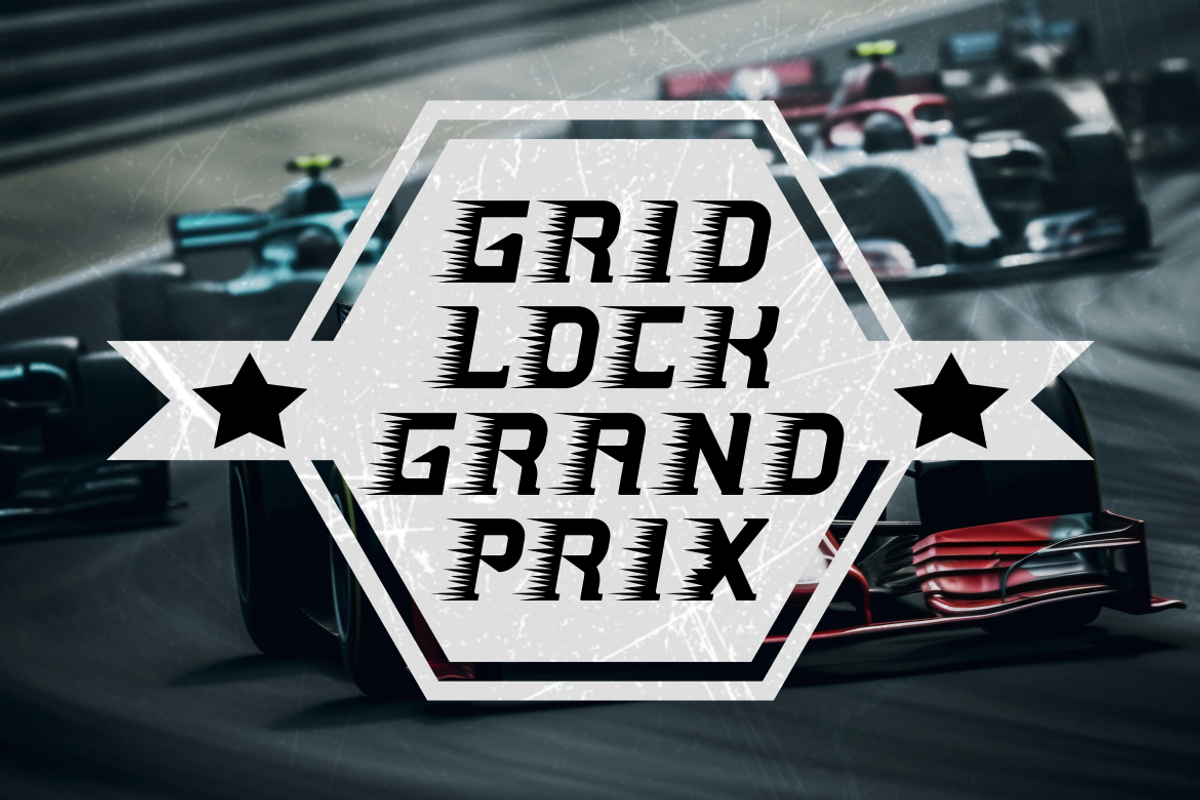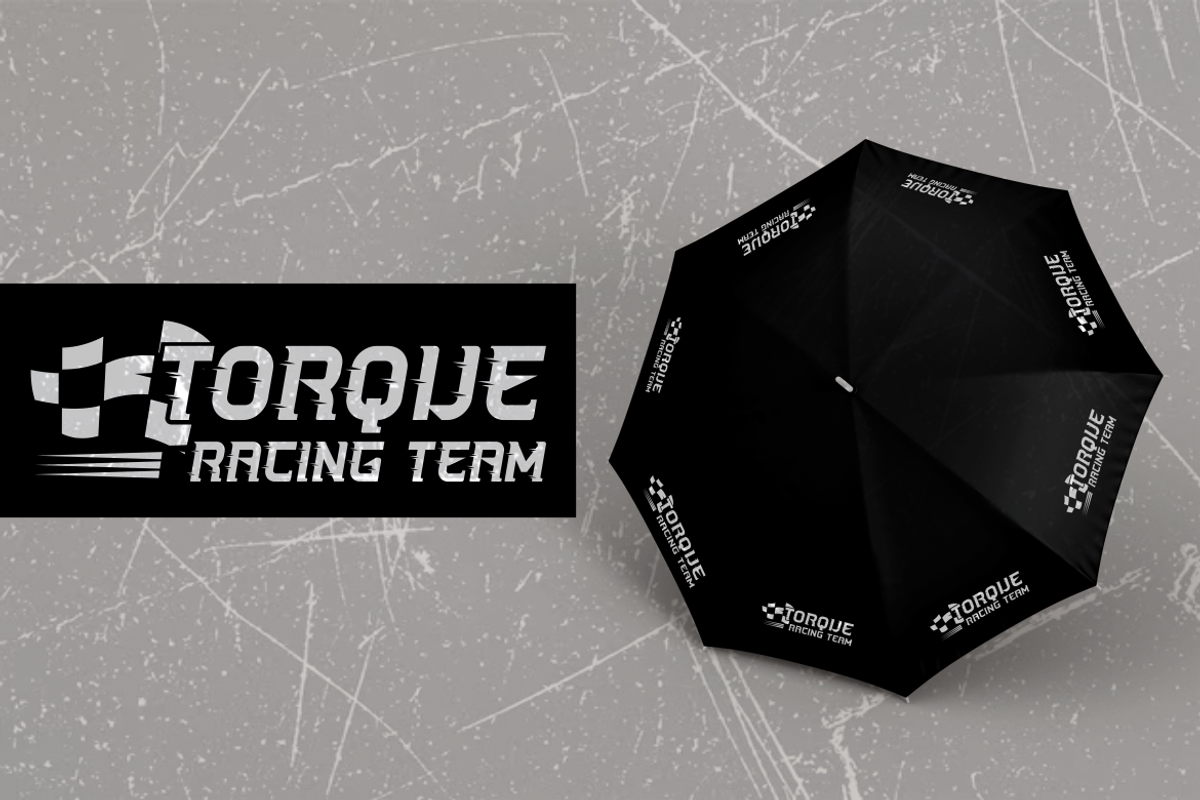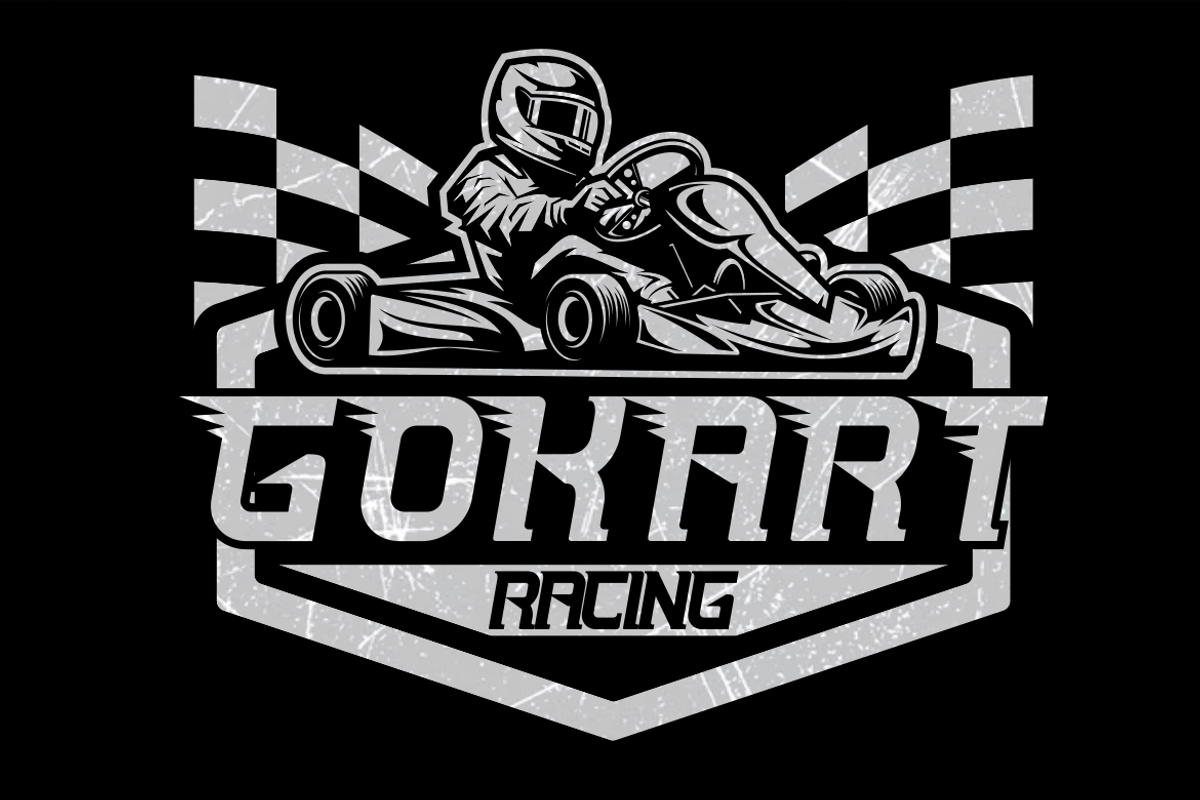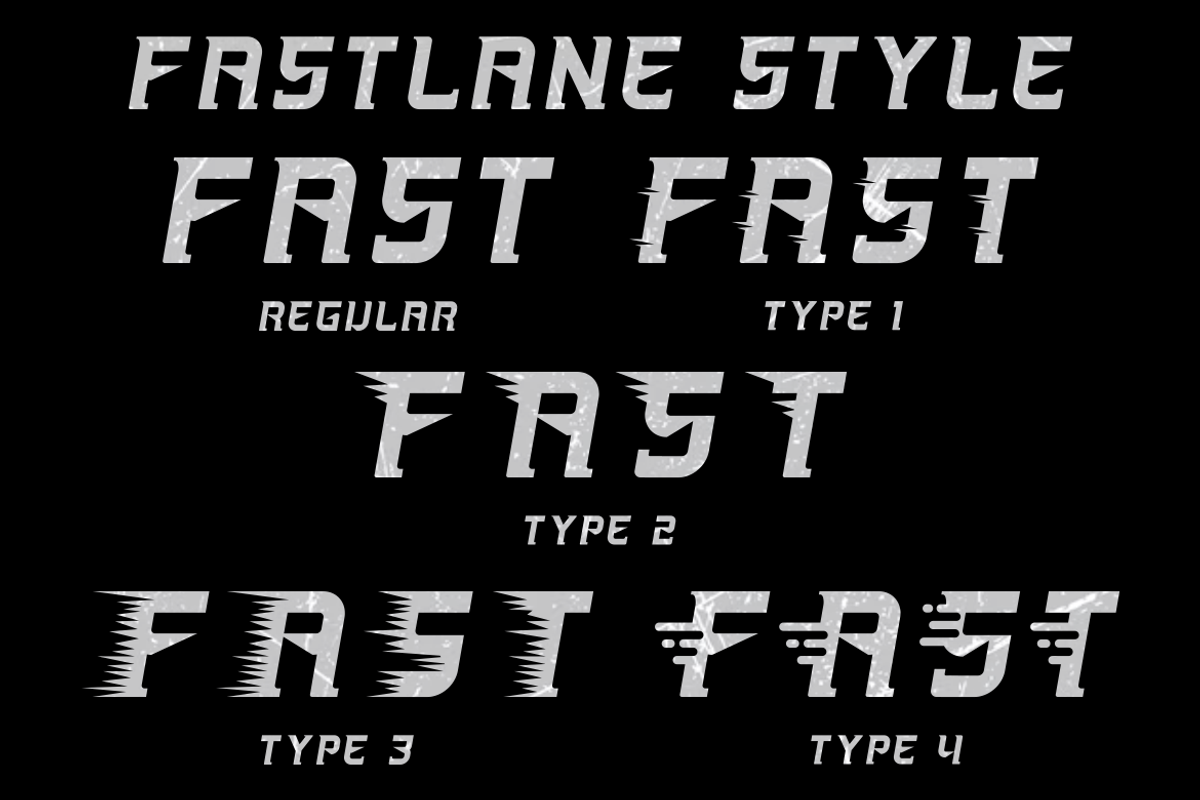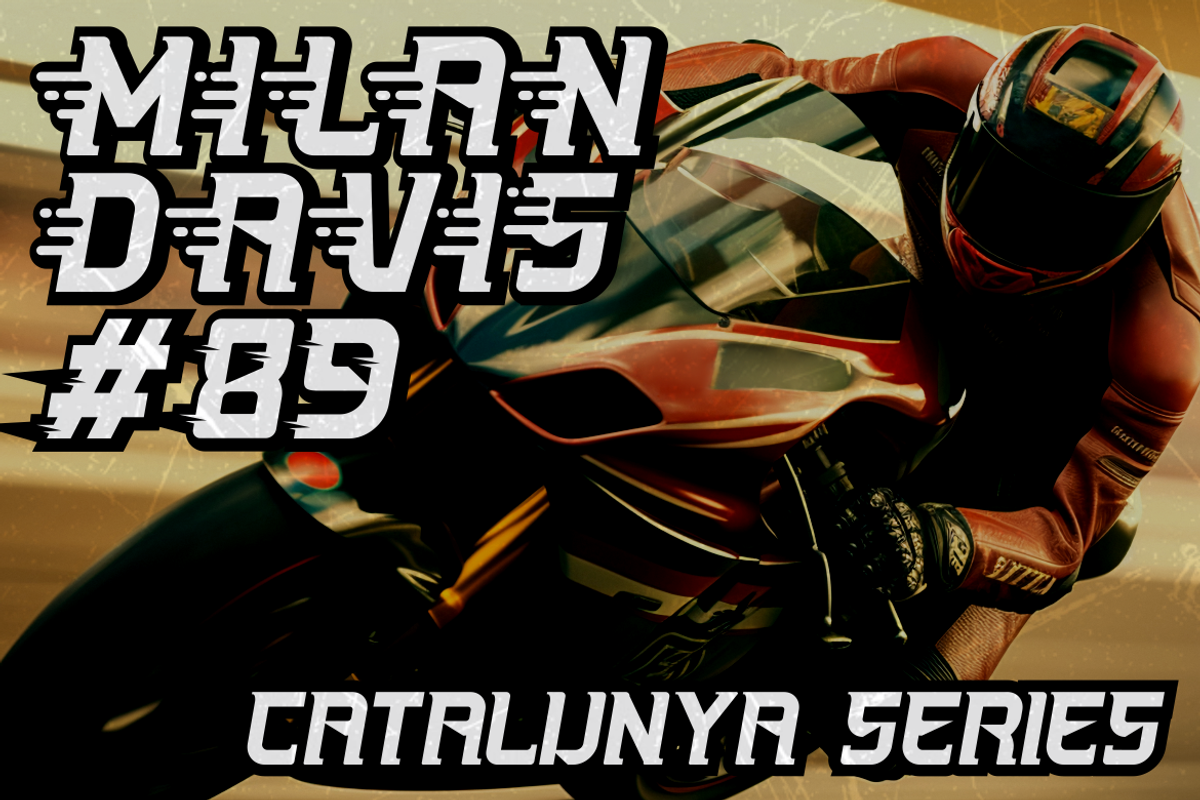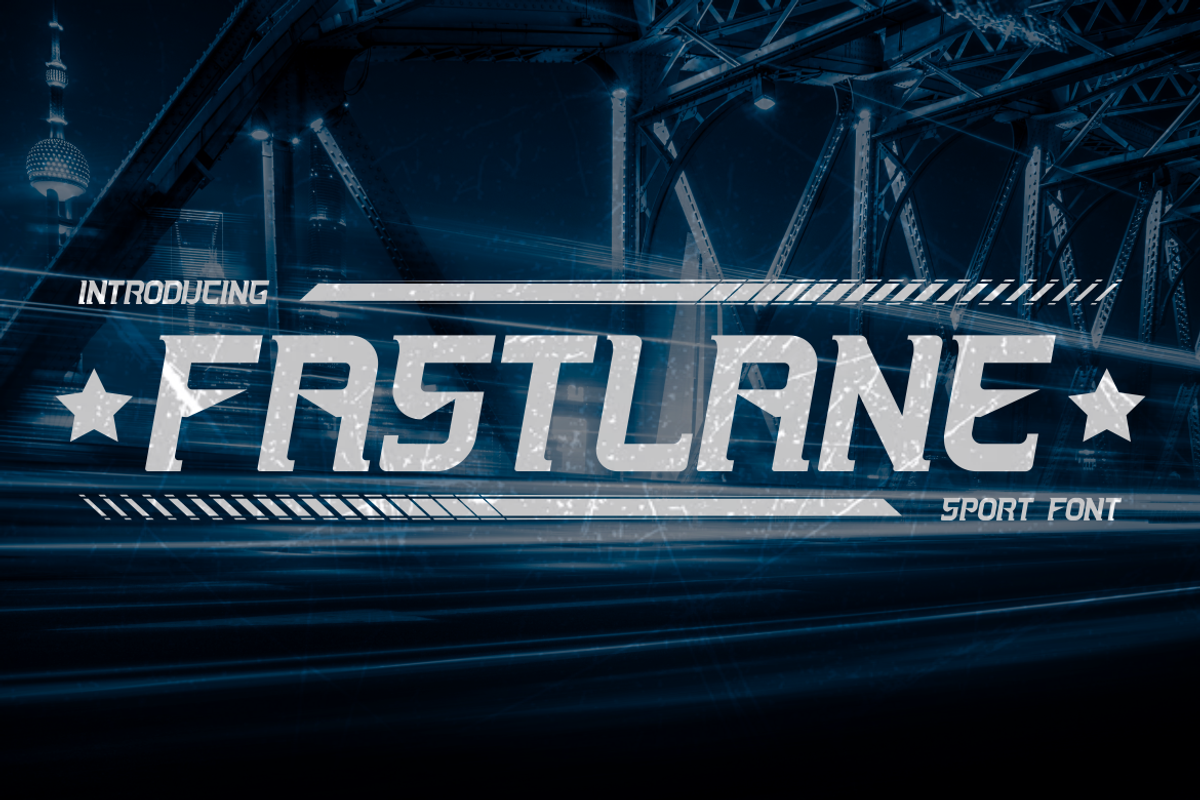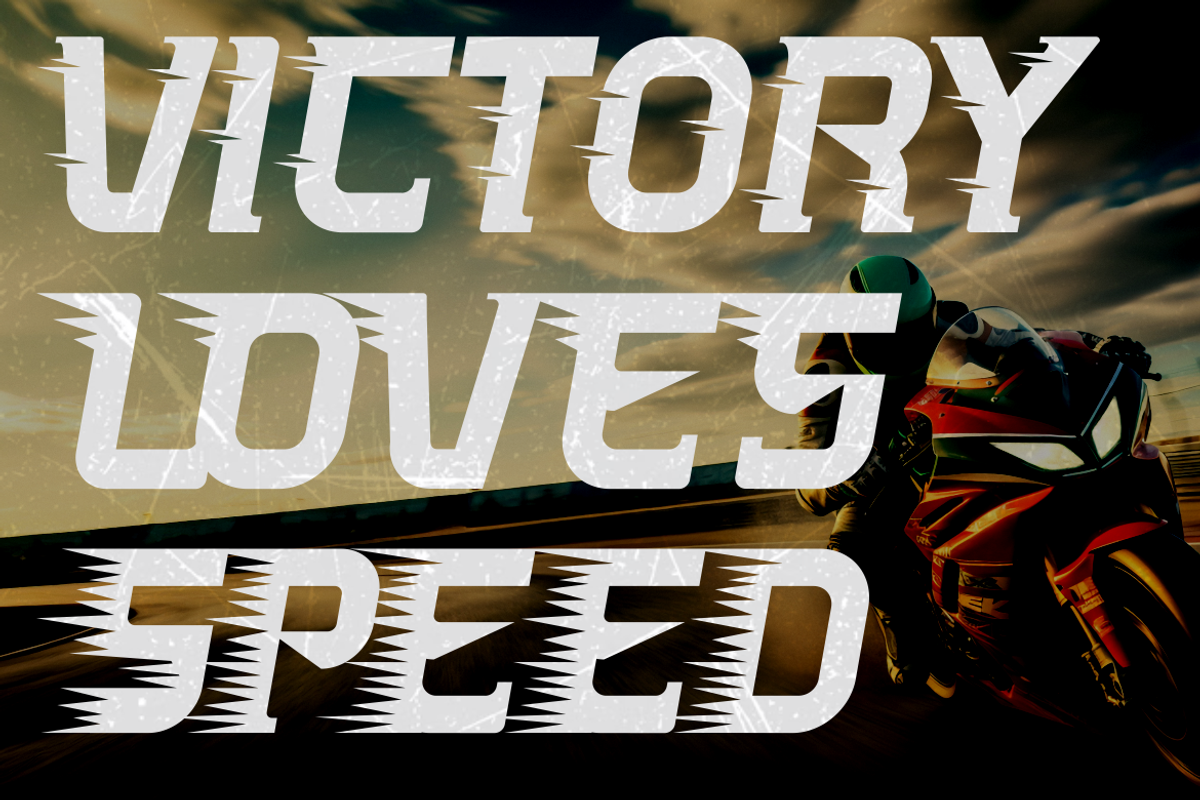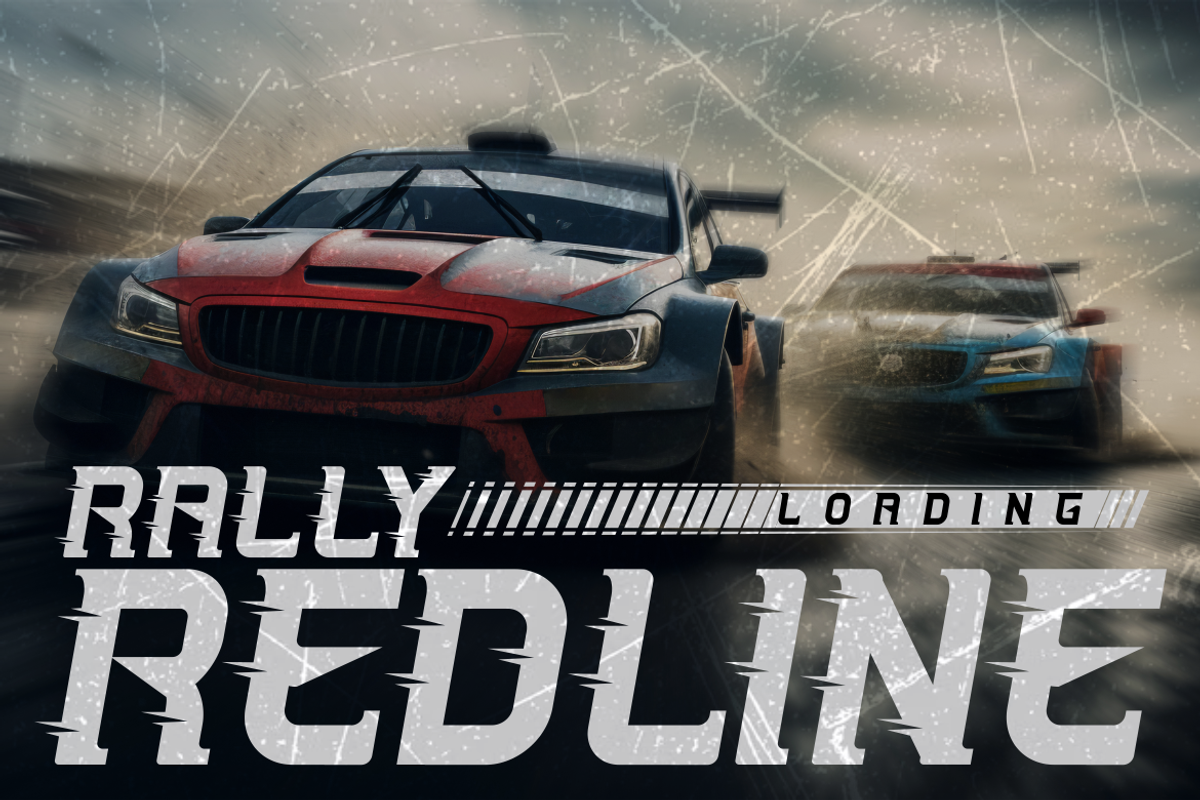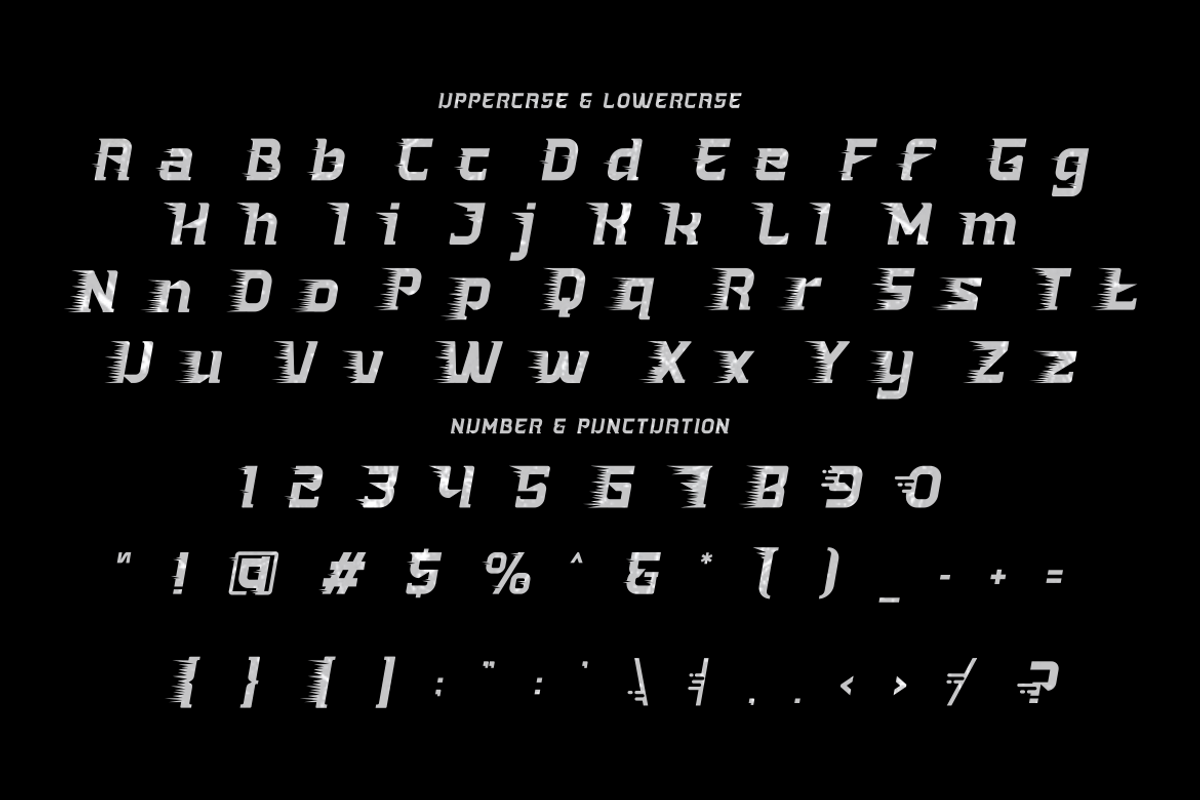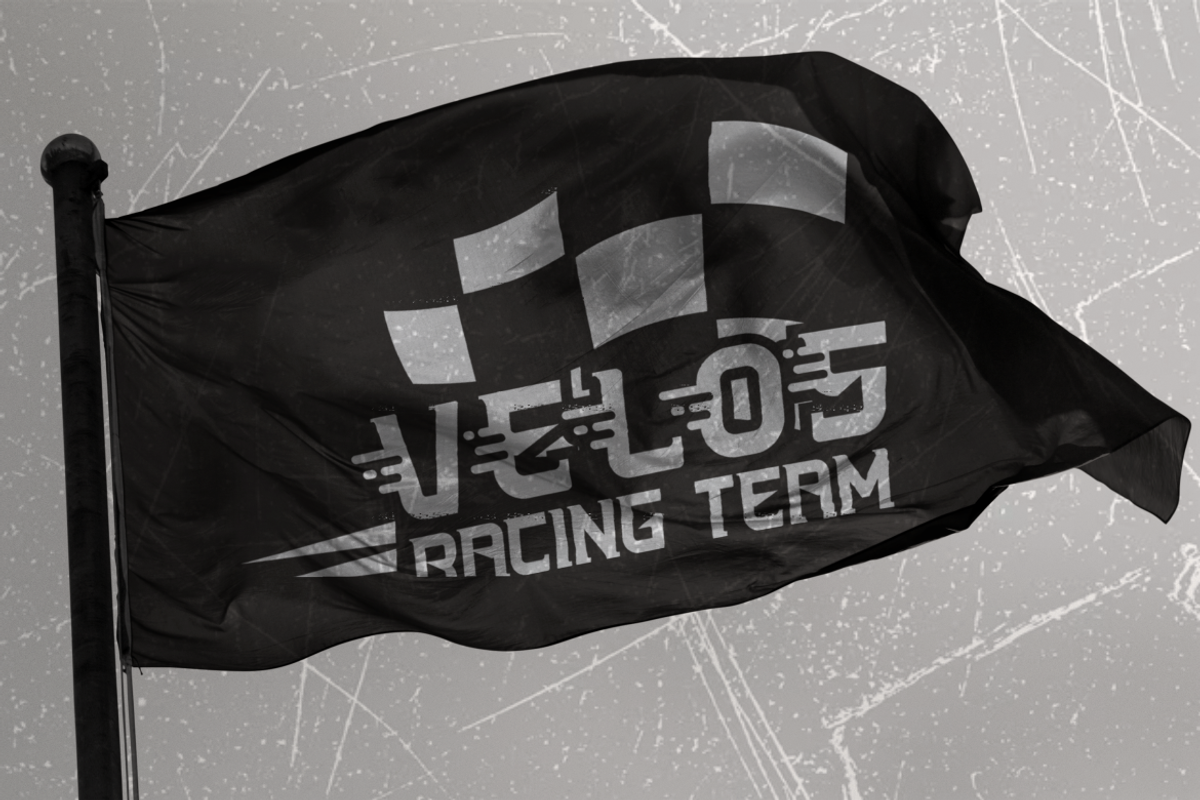
Fastlane Sport Font
Fastlane Sport Font is a high-octane typeface crafted to embody the thrill of speed and precision. With sharp angular cuts, aerodynamic letterforms, and a bold presence, Fastlane mirrors the intensity of motorsport culture. The font features a custom textured overlay and race-themed visual elements, such as motion streaks and speed-induced extensions, which make each character feel like it’s in motion. Whether you're designing for a racing event, esport branding, or high-performance apparel, this typeface ensures your message hits maximum velocity.
Perfectly suited for bold headlines, event posters, team logos, or product packaging, Fastlane brings edge and masculinity to any layout. Its assertive stance and gritty texture are ideal for crafting visuals that demand attention—on and off the track. From motorsport campaigns and film titles to sport-themed magazines and stickers, Fastlane adapts across digital and print media with ease. Buckle up—this font was built to lead, not follow.